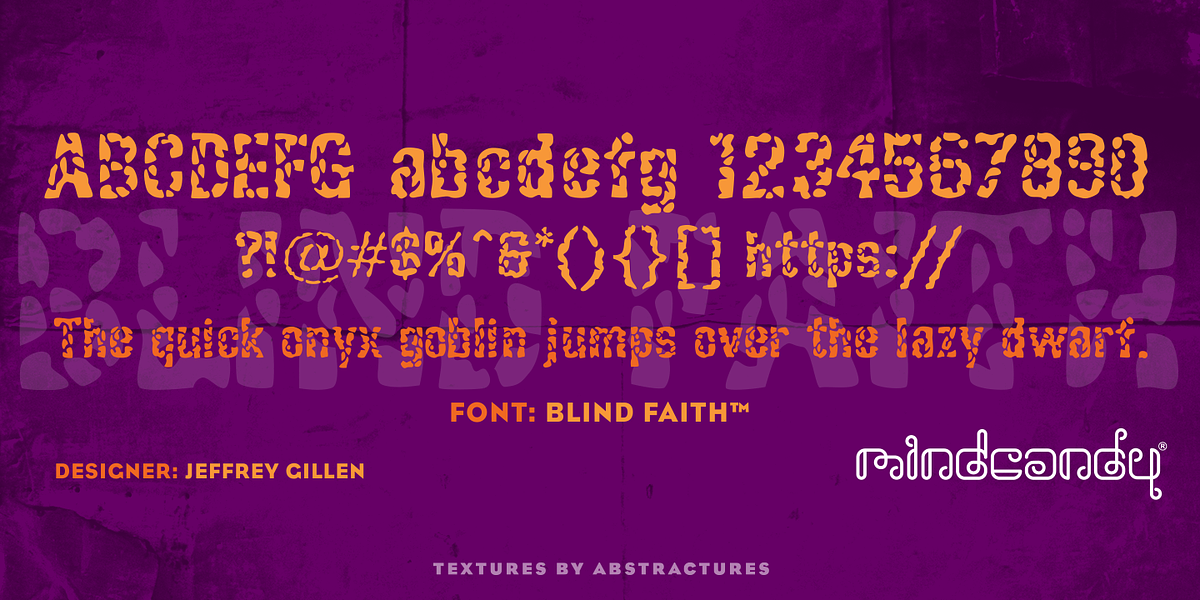
Blind Faith™
Blind Faith is a grunge-style font designed by Jeff Gillen in 1998. It stands out from other grunge typefaces due to its high legibility and bold nature. The font features contrasting thick and thin strokes within each character, creating a unique visual texture. The clever use of both positive and negative space contributes to a 'camouflage' effect, highlighting the paradox inherent in the concept of 'blind faith'.